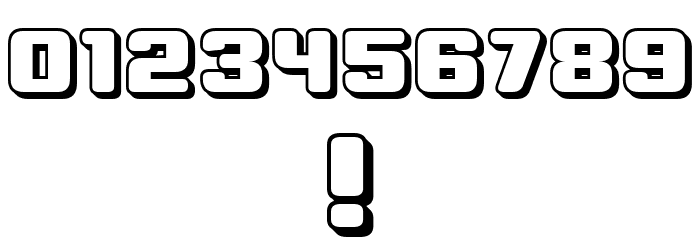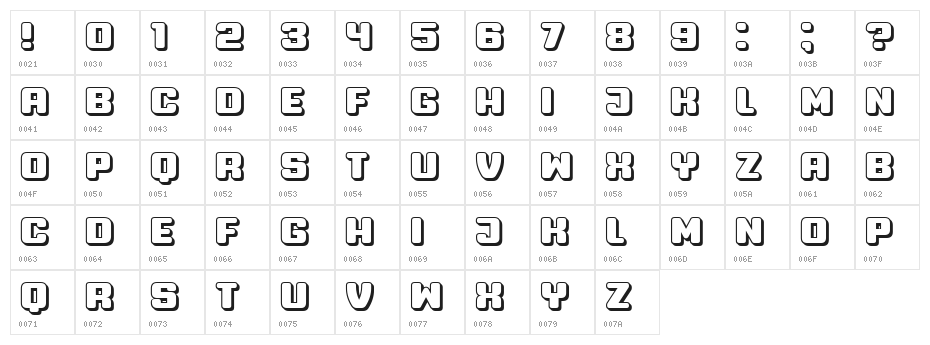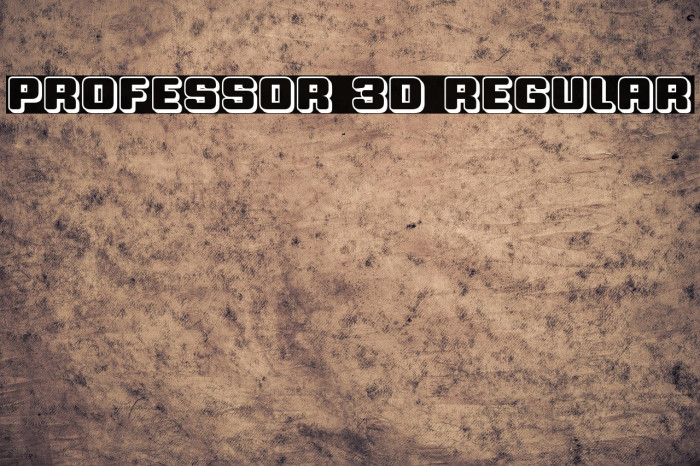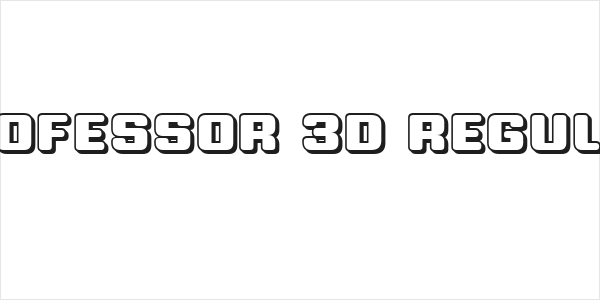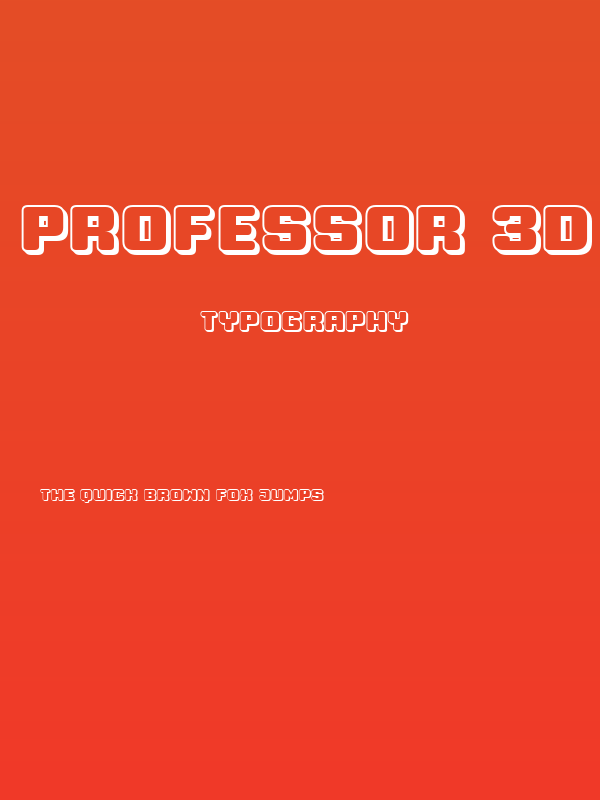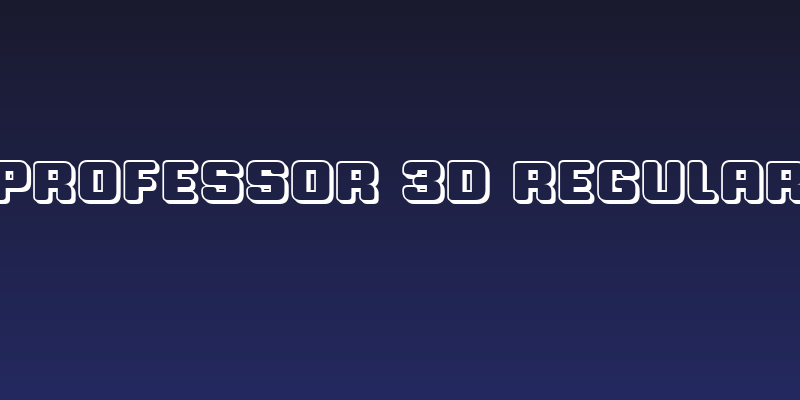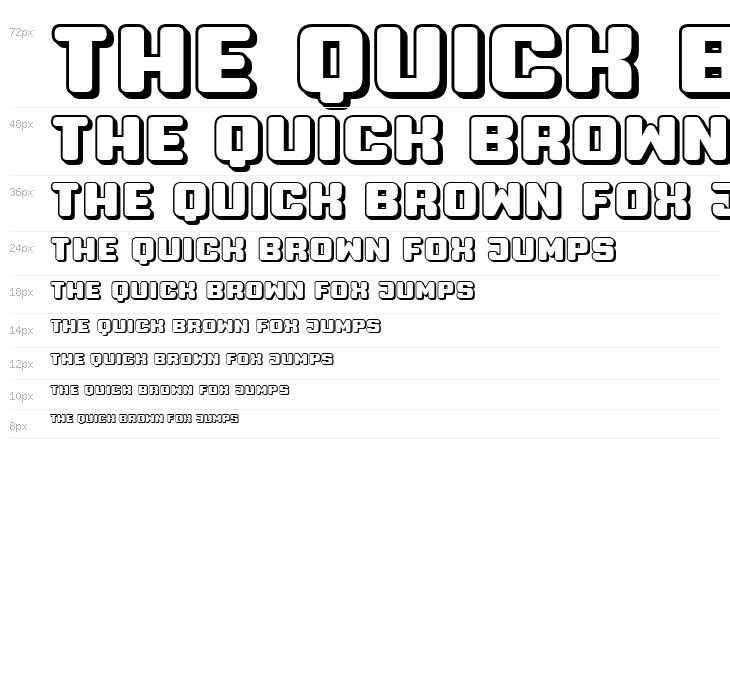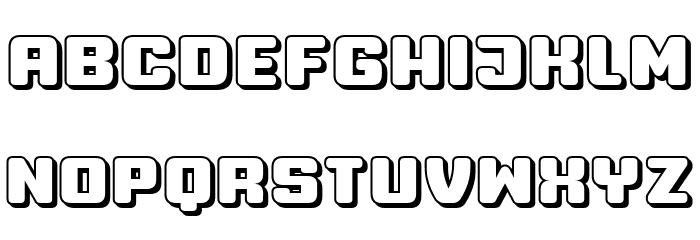
Professor 3D Regular Font
Professor 3D Regular Description
This font features a bold, three-dimensional appearance with a strong outline that gives each character a distinct, impactful look. The uppercase letters are uniformly structured, with rounded edges that soften the overall geometric design. The numbers are consistent with the letterforms, maintaining the same boldness and dimensionality. The exclamation mark shares the same style, ensuring cohesion across all characters. This font's unique 3D effect makes it stand out, ideal for designs that require a modern and eye-catching aesthetic.